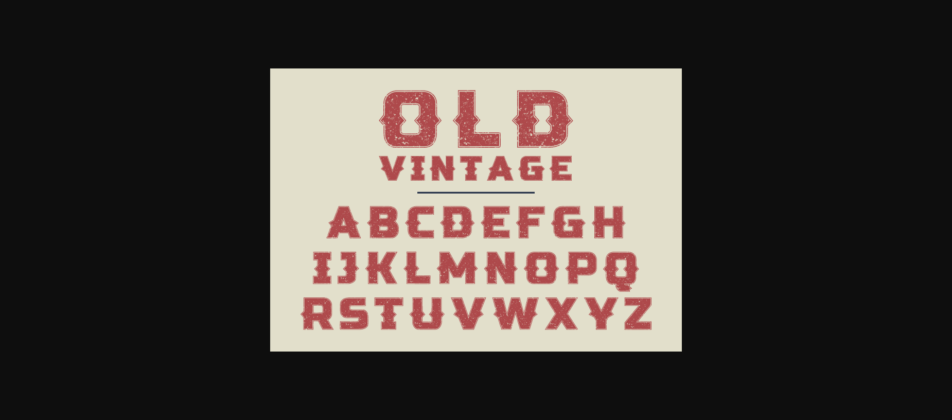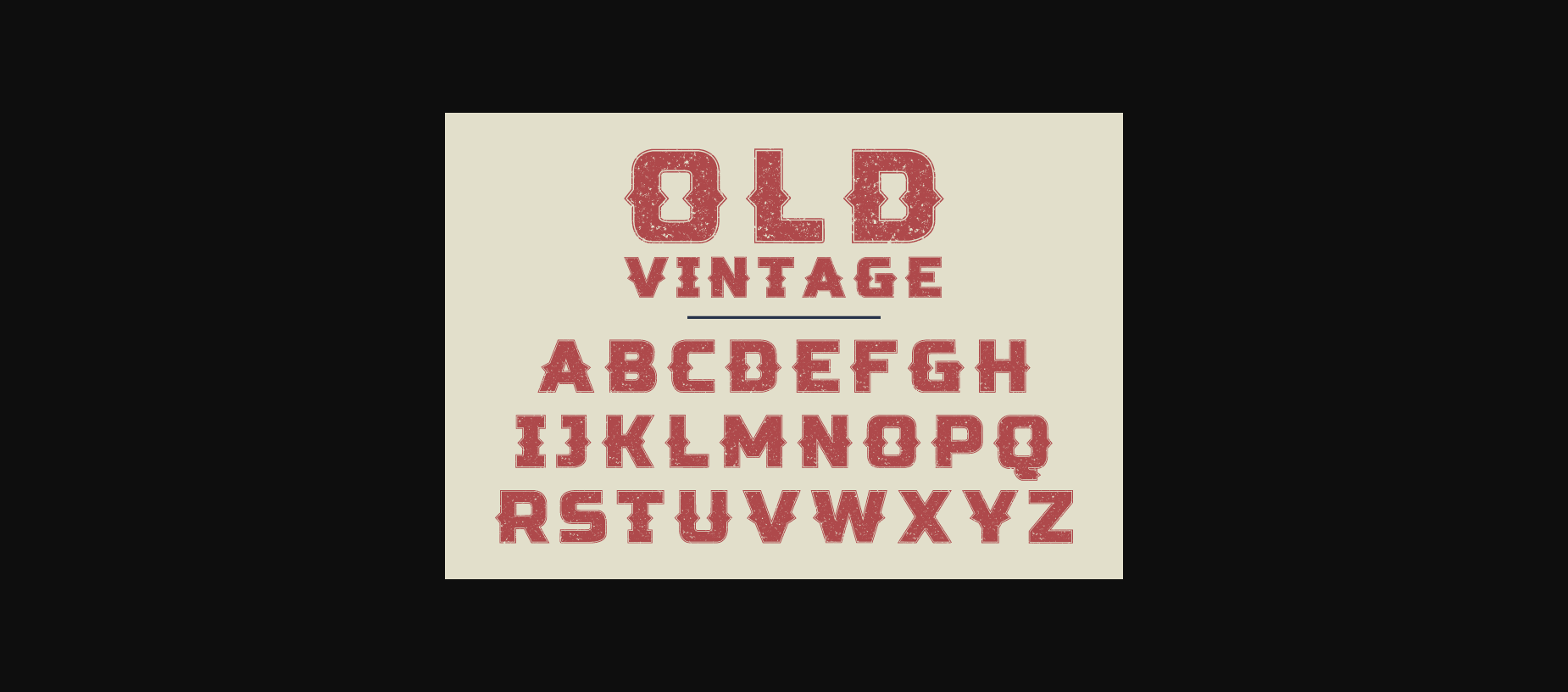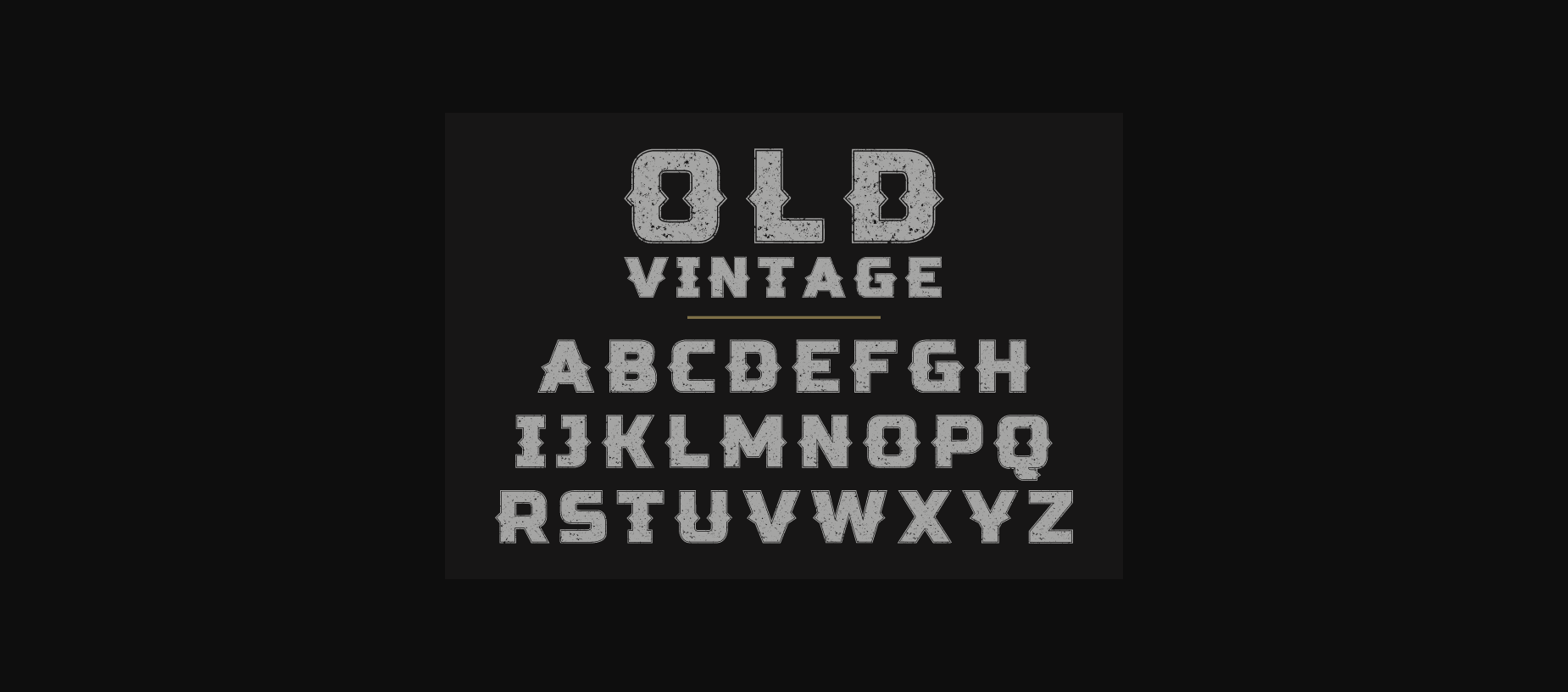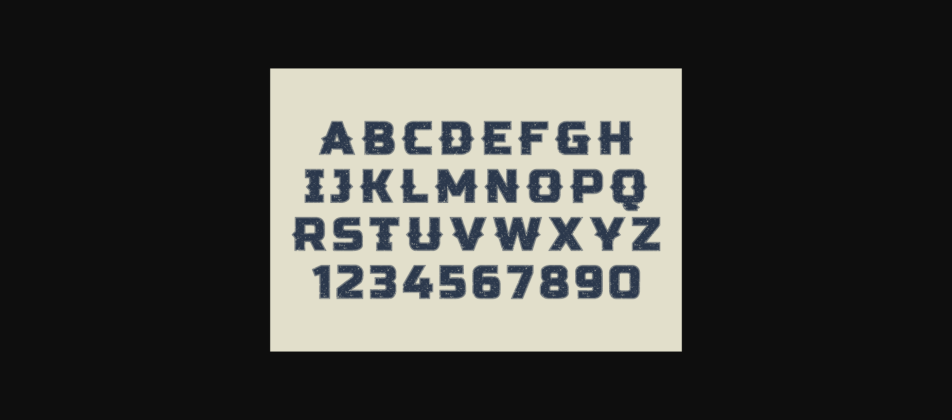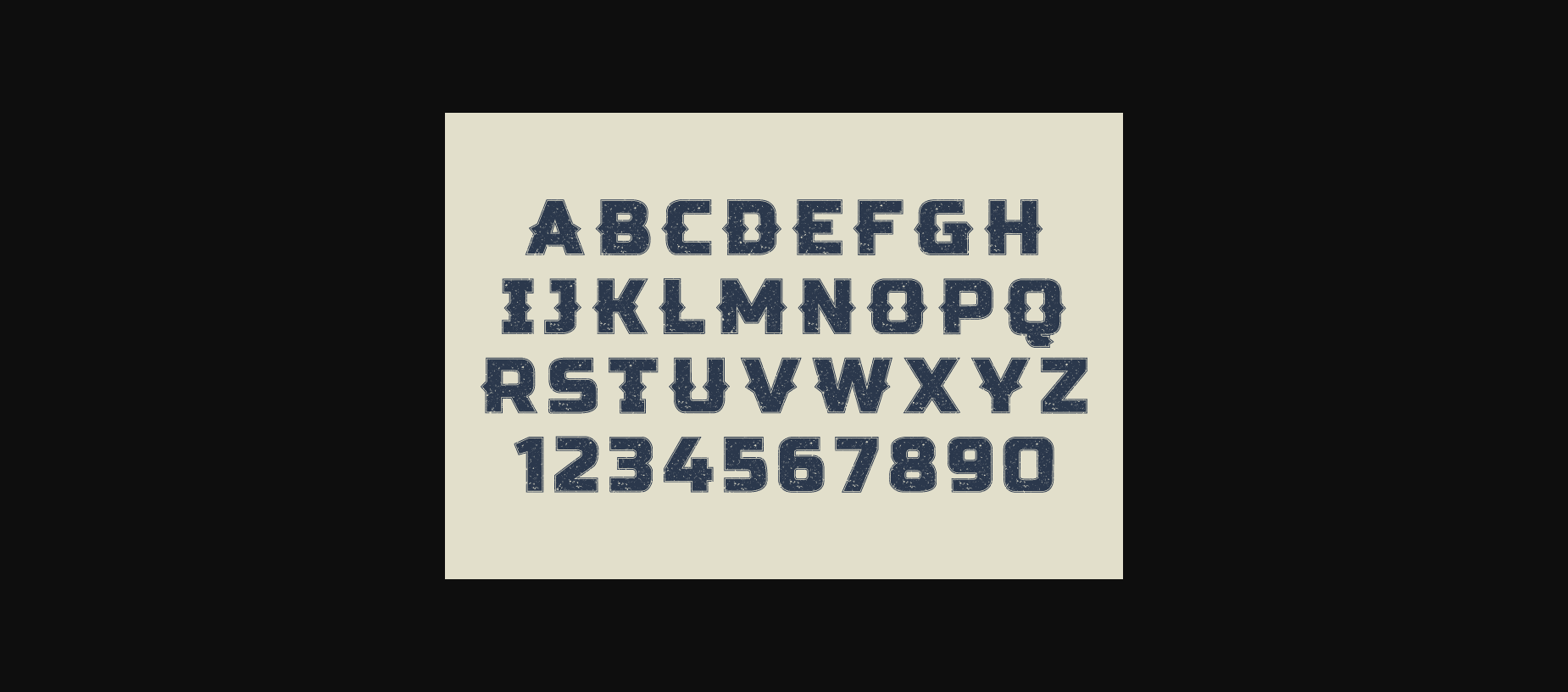
About Old Vintage Font
Embodying the charm of the Wild West, aesthetic simplicity, and the echo of a bygone era, Old Vintage is a sans serif grunge font characterized by its tastefully balanced proportions. Its retro-infused design, enthused with a clean and minimalist aura, makes for an ideal choice to embellish logos, web designs, and branding concepts. Exceptionally versatile, Old Vintage provides a stunning retro touch to your projects, letting them shine with a distinctly vintage appeal.